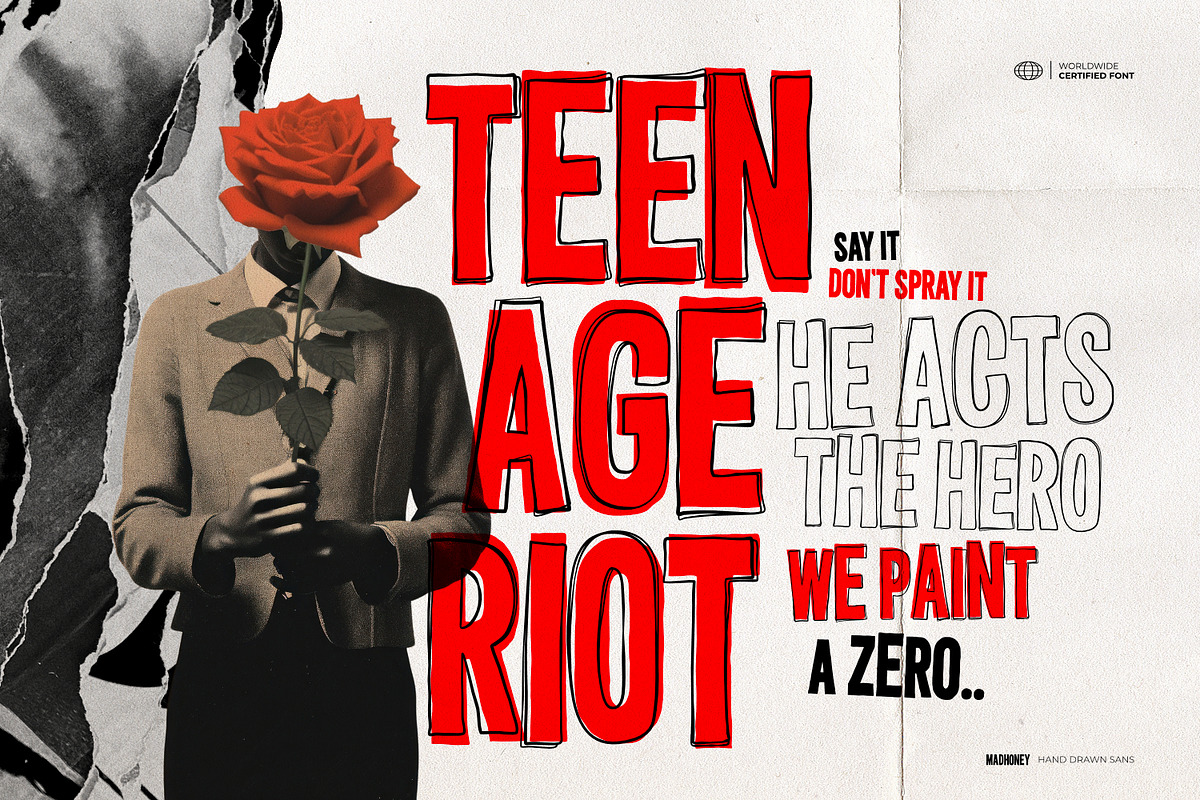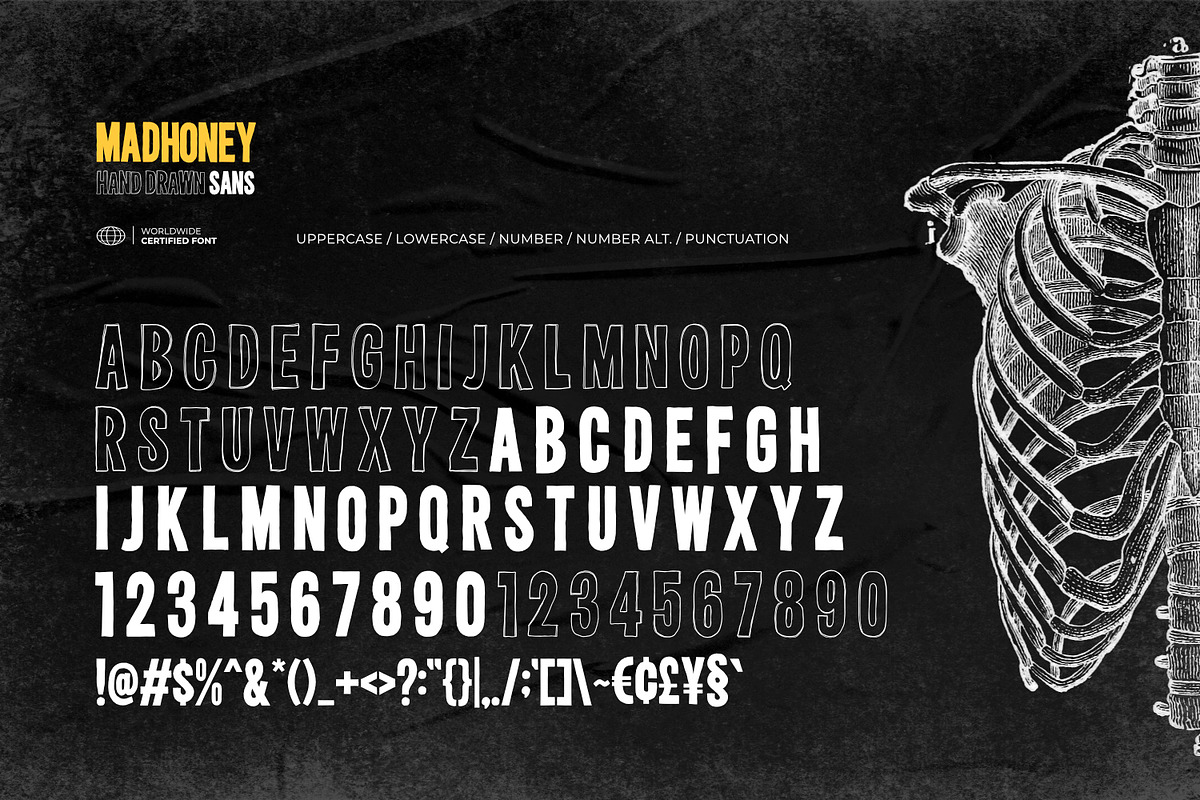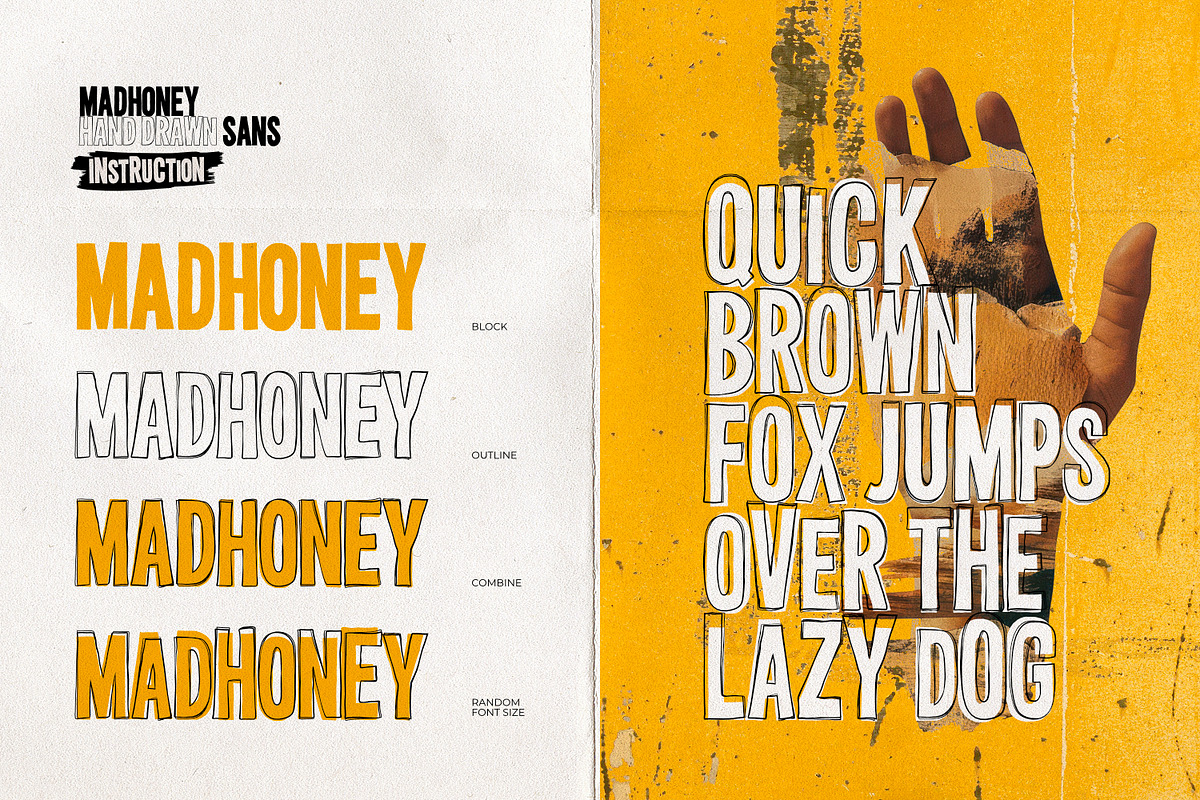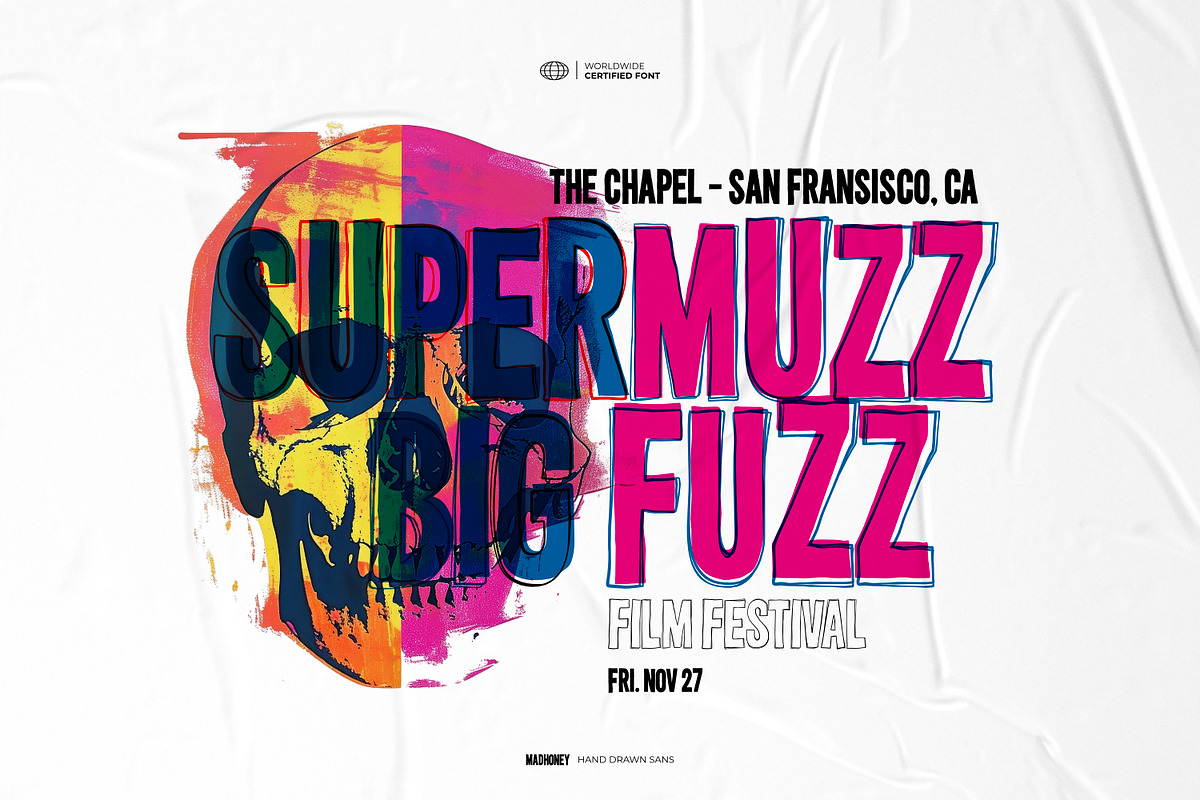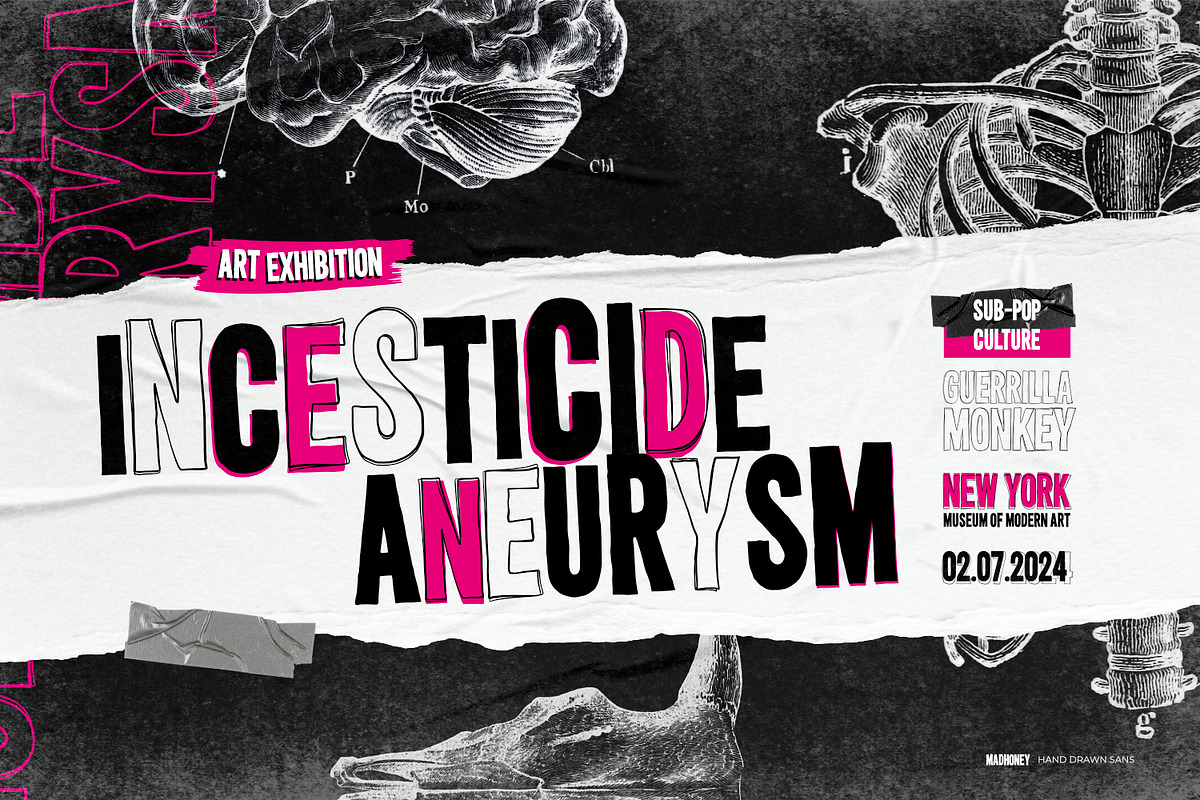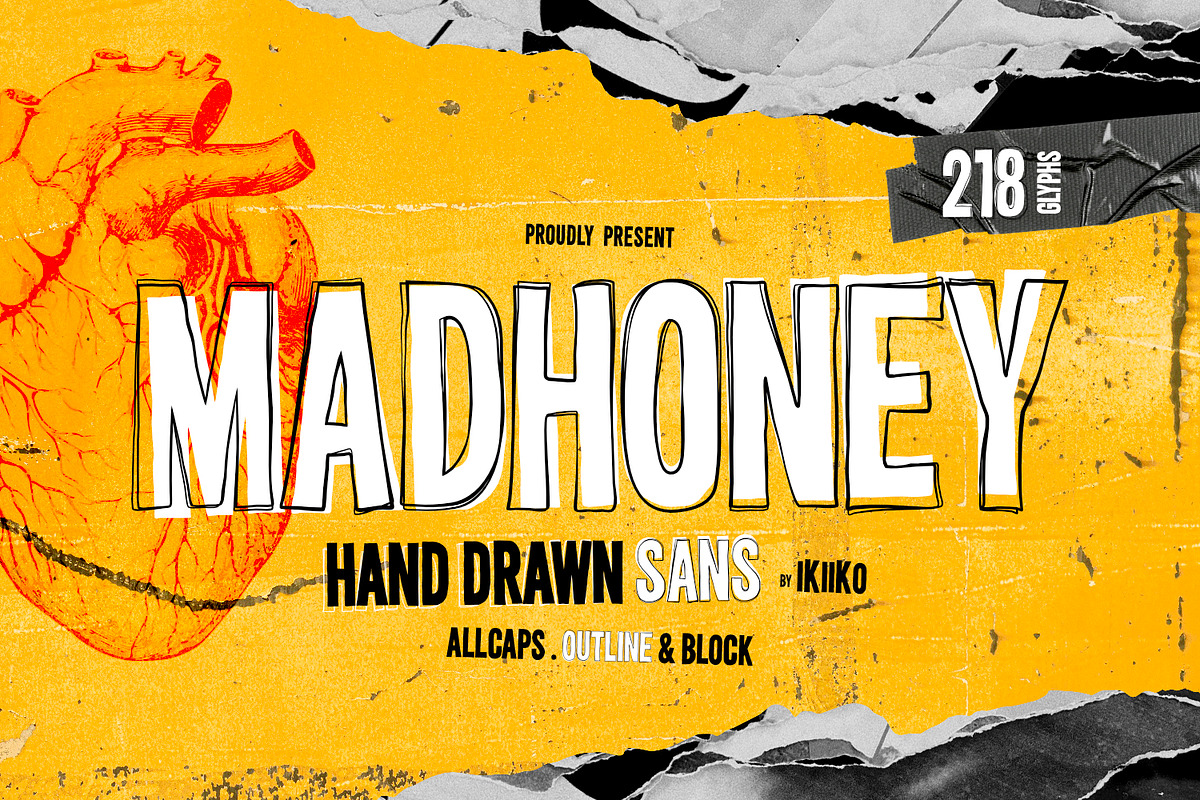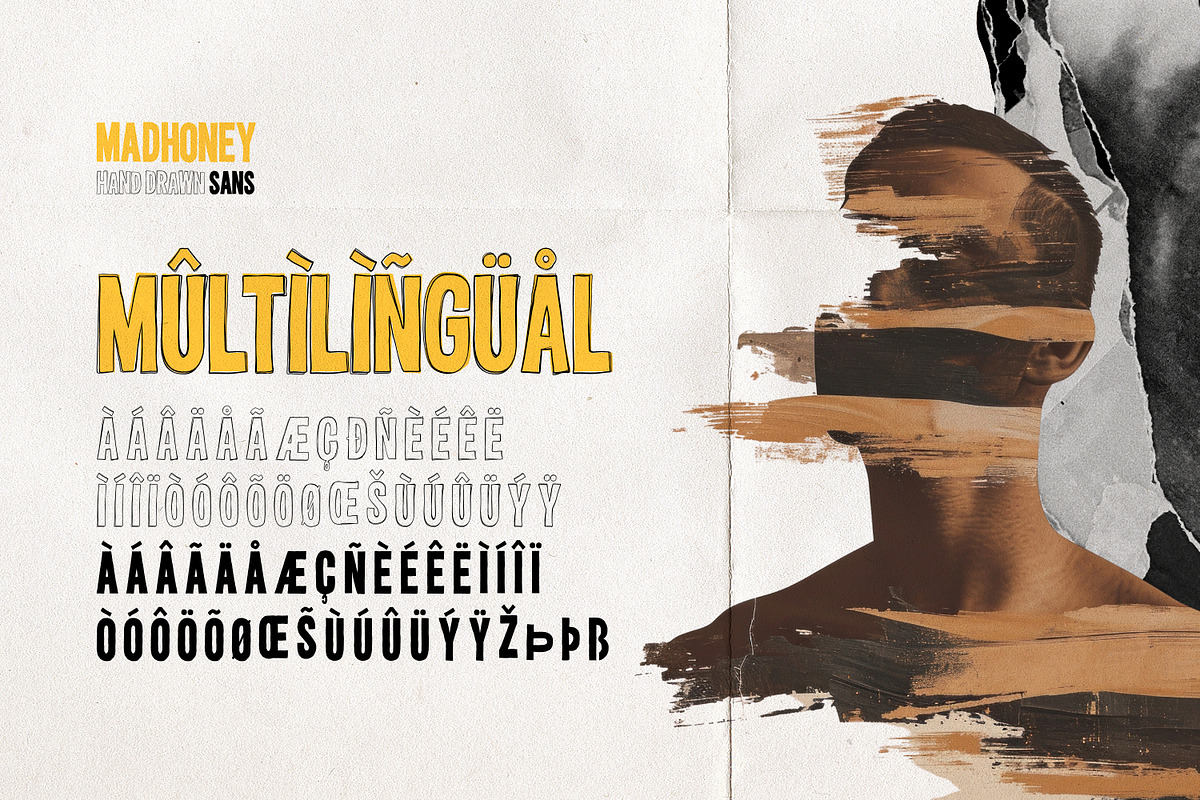
Madhoney - Hand Drawn Sans
Proudly present Madhoney - Hand Drawn Sans, created by ikiiko.
Meet Madhoney, your new go-to hand-drawn sans font with a cool, rough-around-the-edges vibe. It's got that rebellious, grungy flair with expressive strokes that really make a statement. This font rocks the All Caps style, giving you loads of flexibility to mix and match sizes for just the right look.
With its fluid strokes and irregular lines, Madhoney exudes a distinct charm that sets it apart from traditional sans-serif fonts. Its organic feel lends itself well to various design contexts.
This type is very suitable for making a poster, magazine layout, book cover, movie title, fashion design, quotes, or simply as a stylish text overlay to any background image.
- All Caps : Block & Outline
- Number & Punctuation